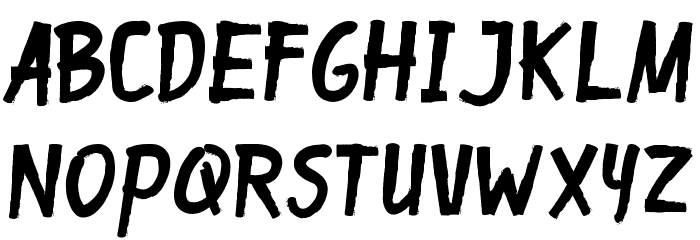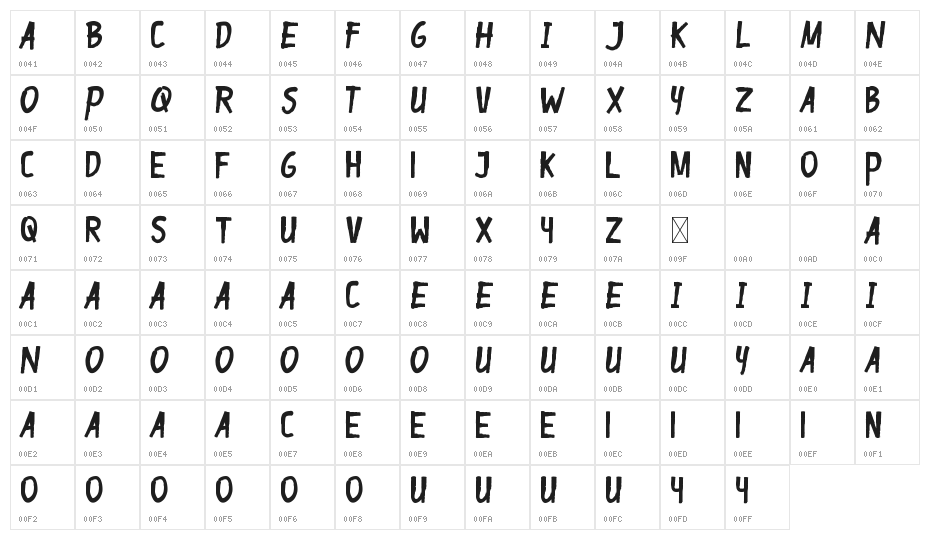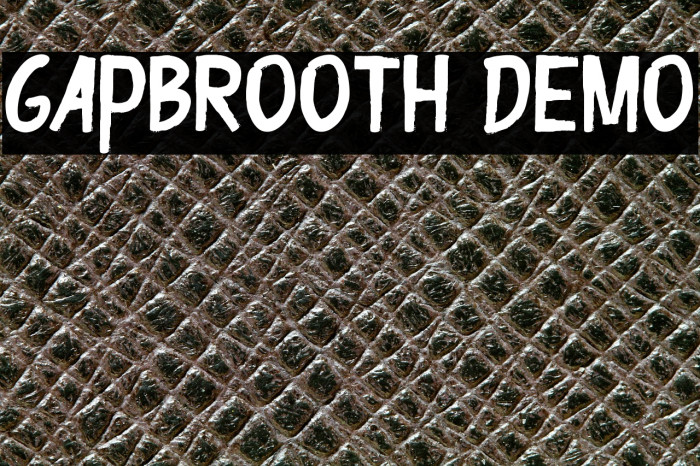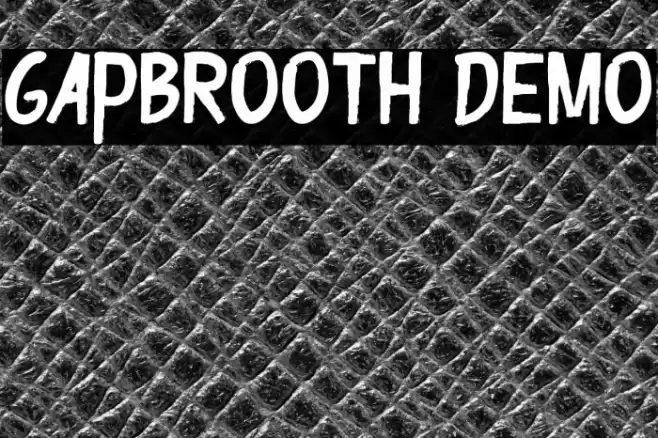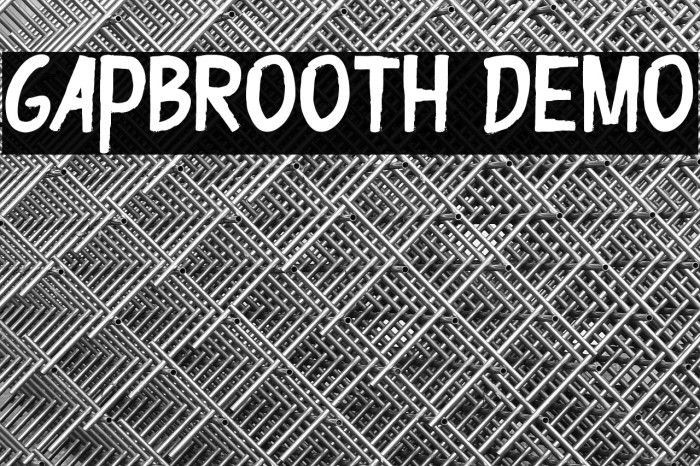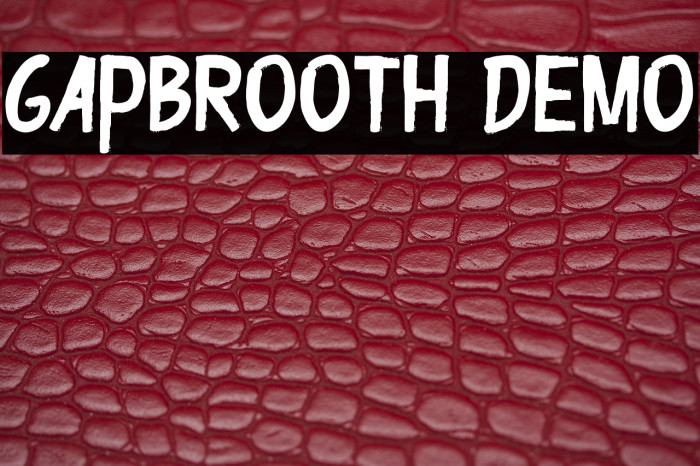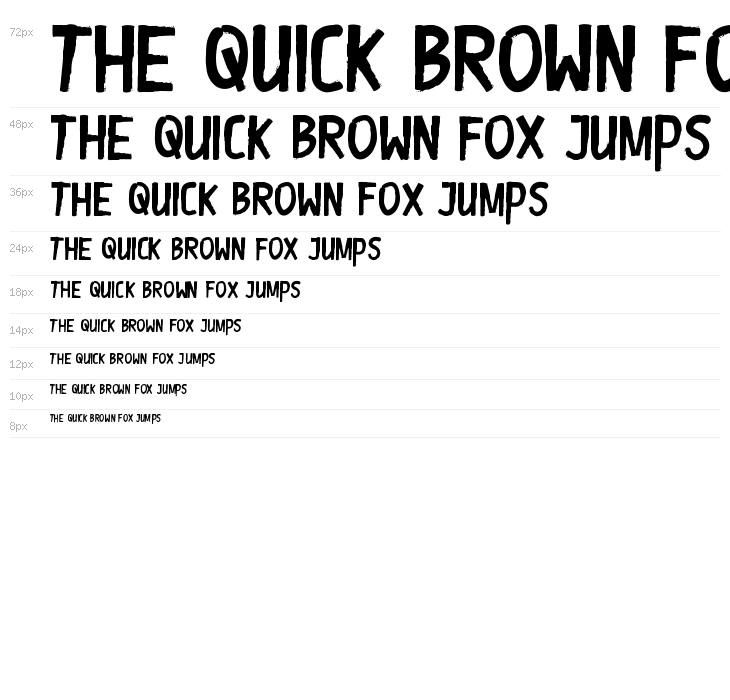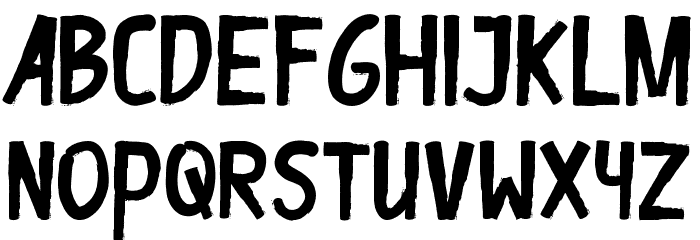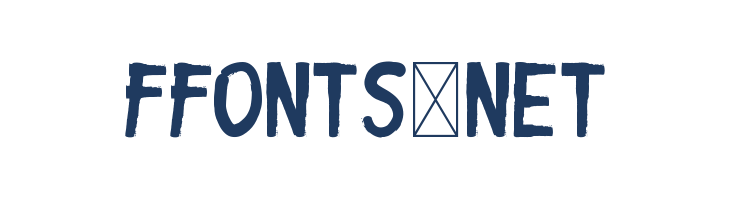
Gapbrooth Demo Font
Gapbrooth Demo Description
This font features a bold, hand-drawn style with a playful and energetic feel. The letters are slightly irregular, giving it a casual and informal appearance. The strokes are thick and consistent, creating a strong visual impact. The uppercase and lowercase letters maintain a cohesive look, while the numbers and special characters blend seamlessly with the overall design. This font's unique character makes it suitable for projects that require a personal touch or a creative flair.
| Proposed Projects | Ideal for posters, branding, social media graphics, and creative projects that need a personal touch. |